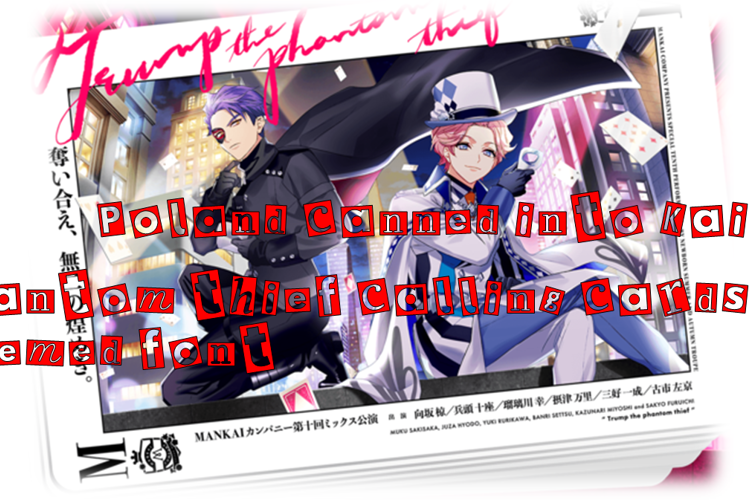
Poland canned into Kaito Font
Poland canned into Kaito is a new ransom note font that is part of "Poland canned into..." series of fonts inspired by Polandball. For this one, it has centered around phantom thief calling cards aesthetics. For nineball symbol, type '9' on your keyboard. Use U+00C0 for the Polandball variant of redesigned CHMC logo and U+00C1 for the "BWAHH" dingbat.
Note on font naming:
Kaito is a Japanese word for phantom thief and isn't related to the Vocaloid character.